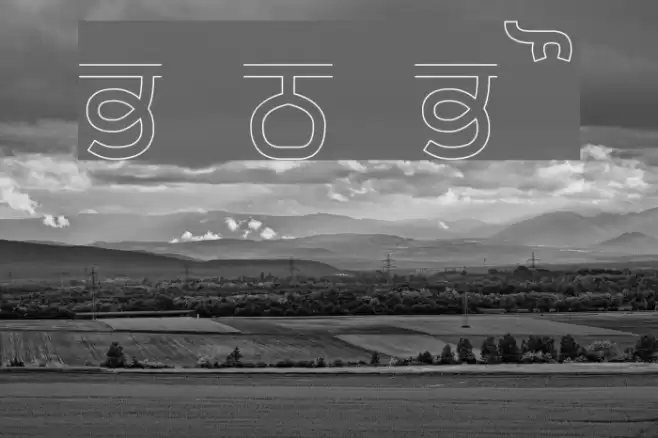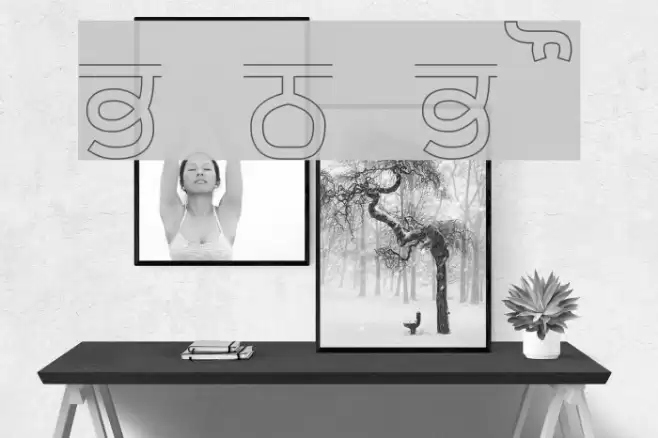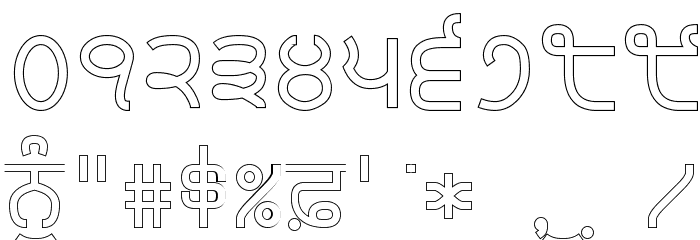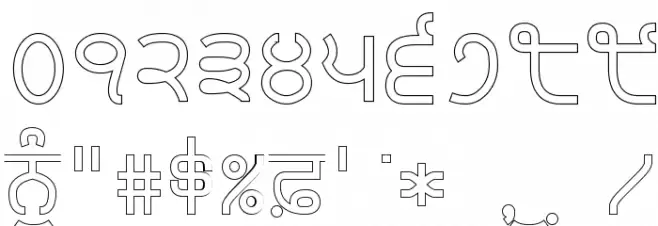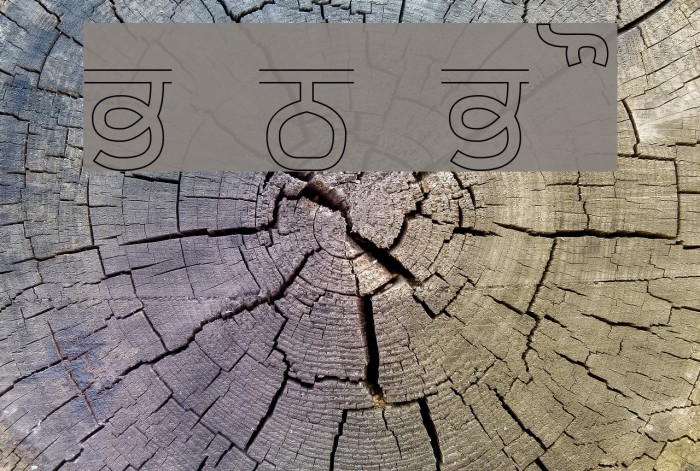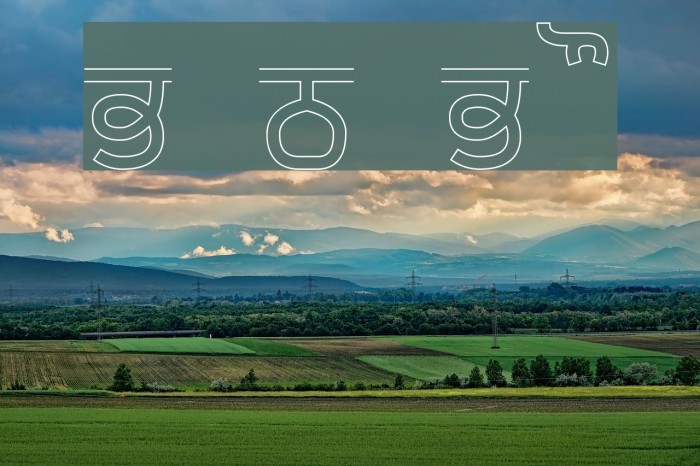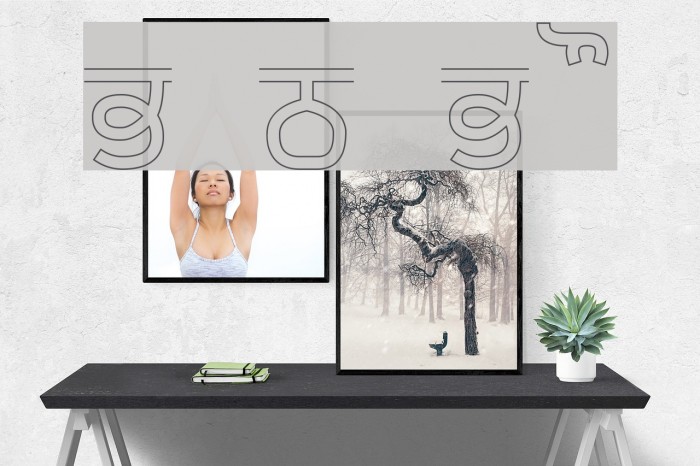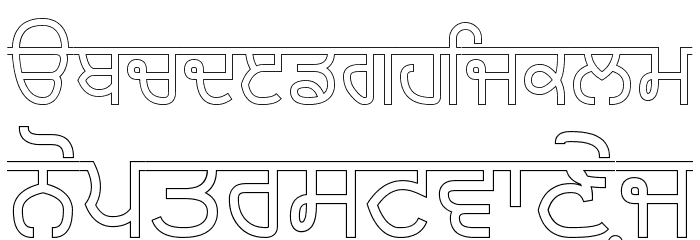
Bulara Thin Border Outline Font
Bulara Thin Border Outline Description
This font features a unique outline style with thin borders that create a distinct and modern appearance. The characters are designed with a geometric precision, emphasizing clean lines and a structured form. The font maintains a consistent stroke width throughout, giving it a uniform look. Its outline nature allows for creative layering and color usage, making it versatile for various design applications. The spacing between characters is balanced, ensuring readability while maintaining its decorative appeal. This font is ideal for projects that require a contemporary and stylish touch.
A modern outline font with thin borders and geometric precision from Asian fonts.